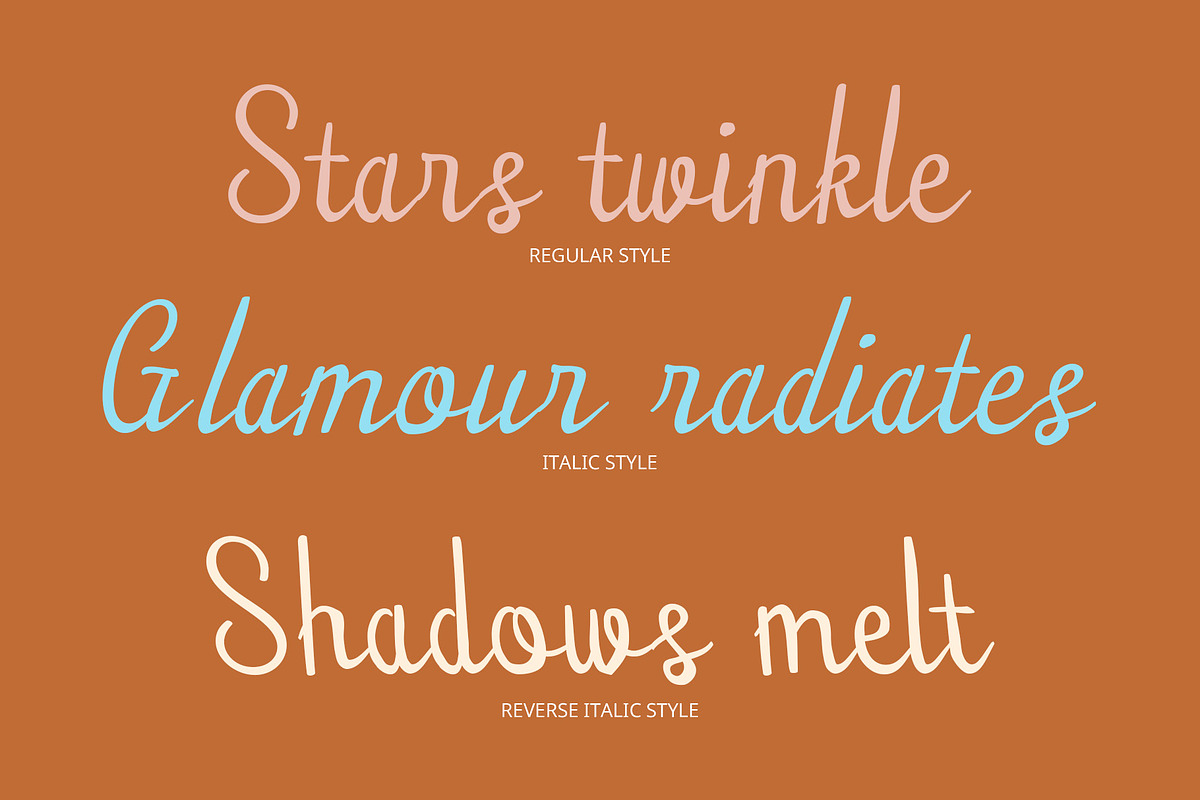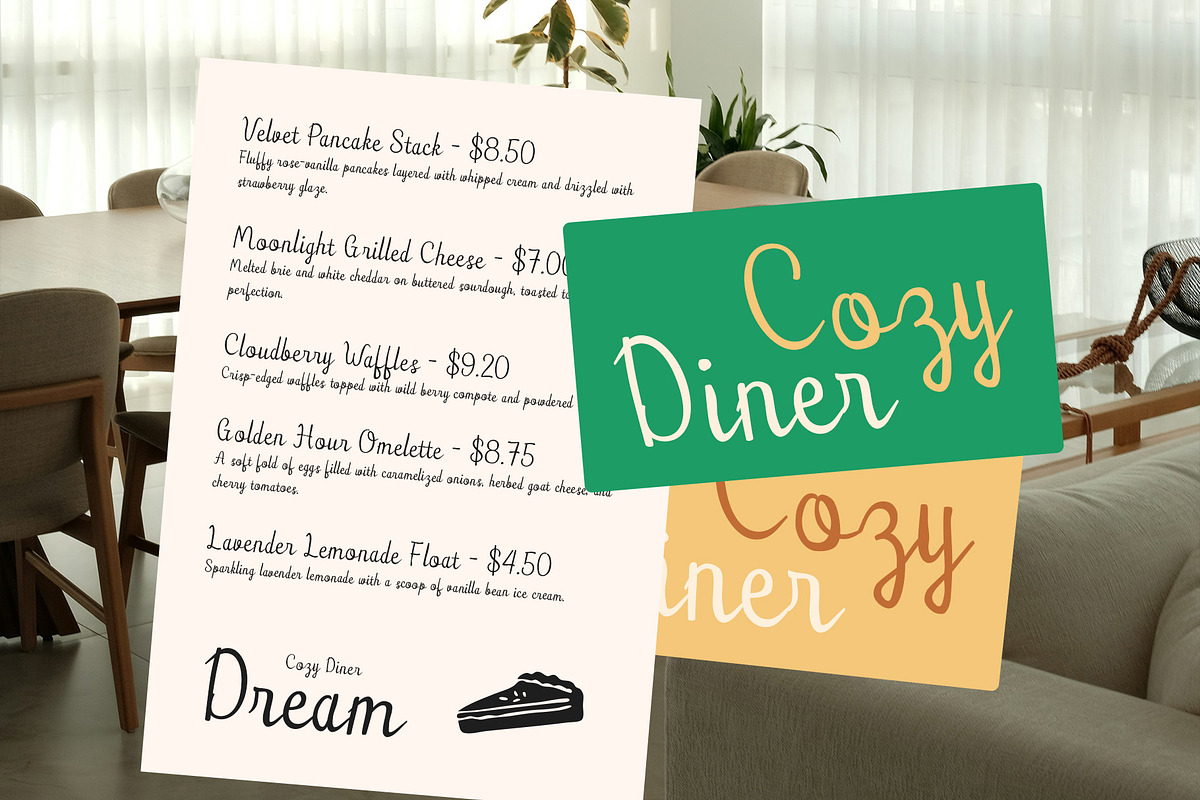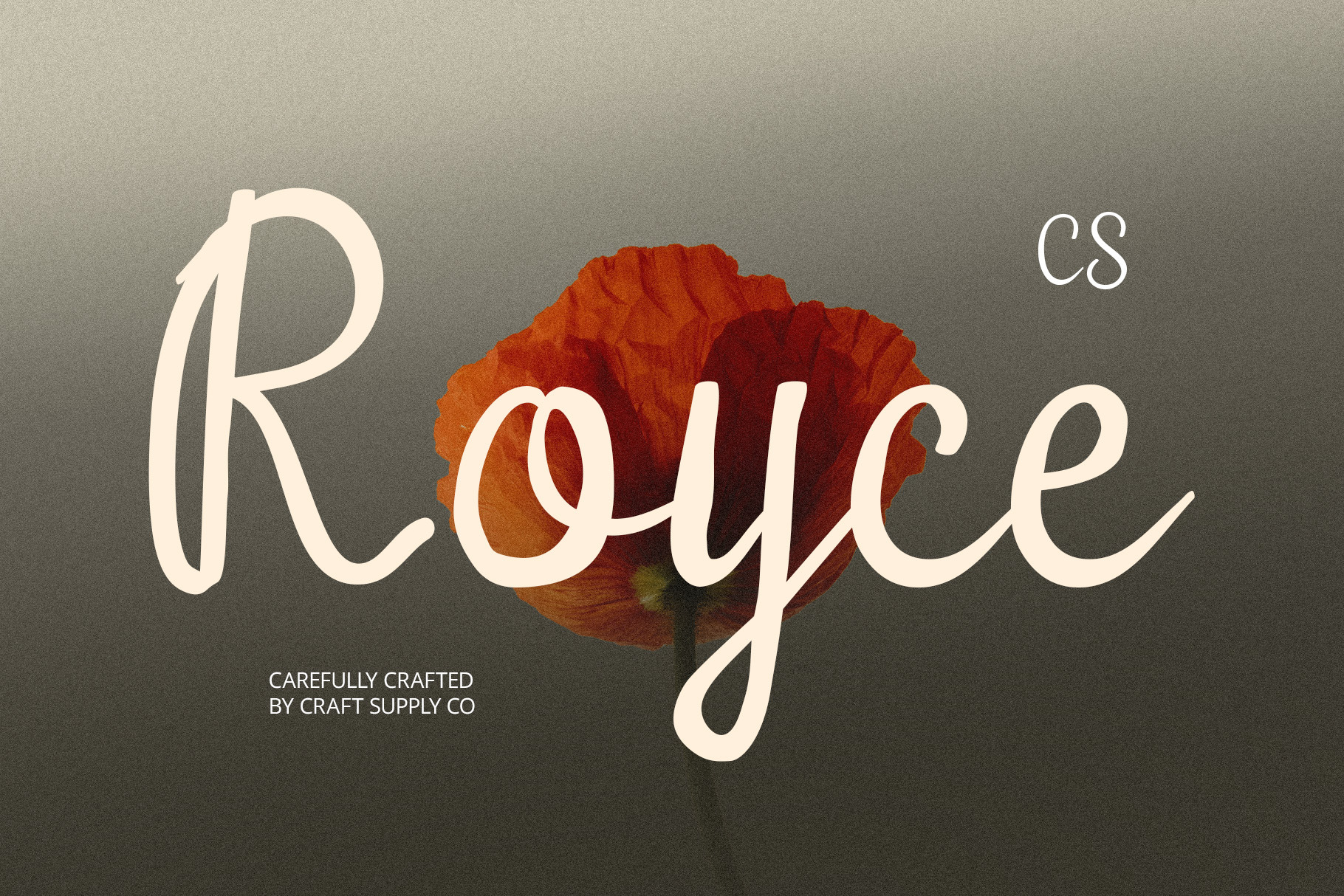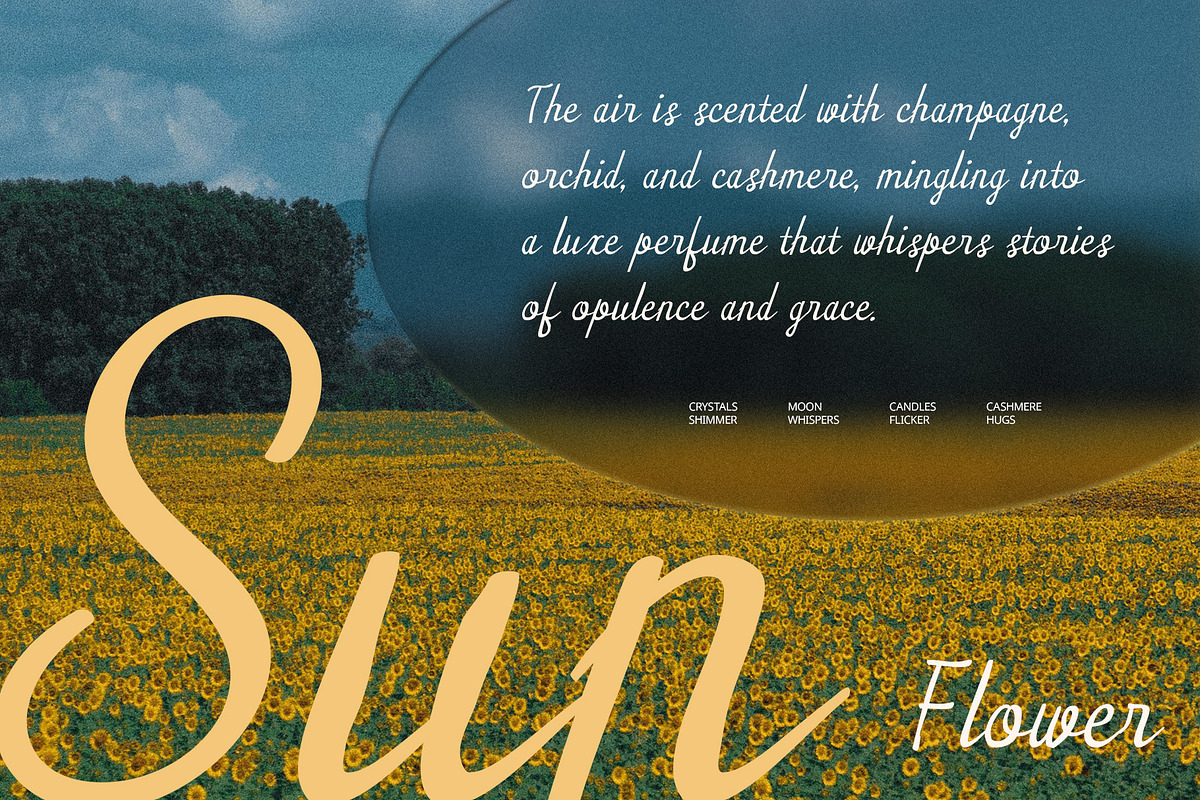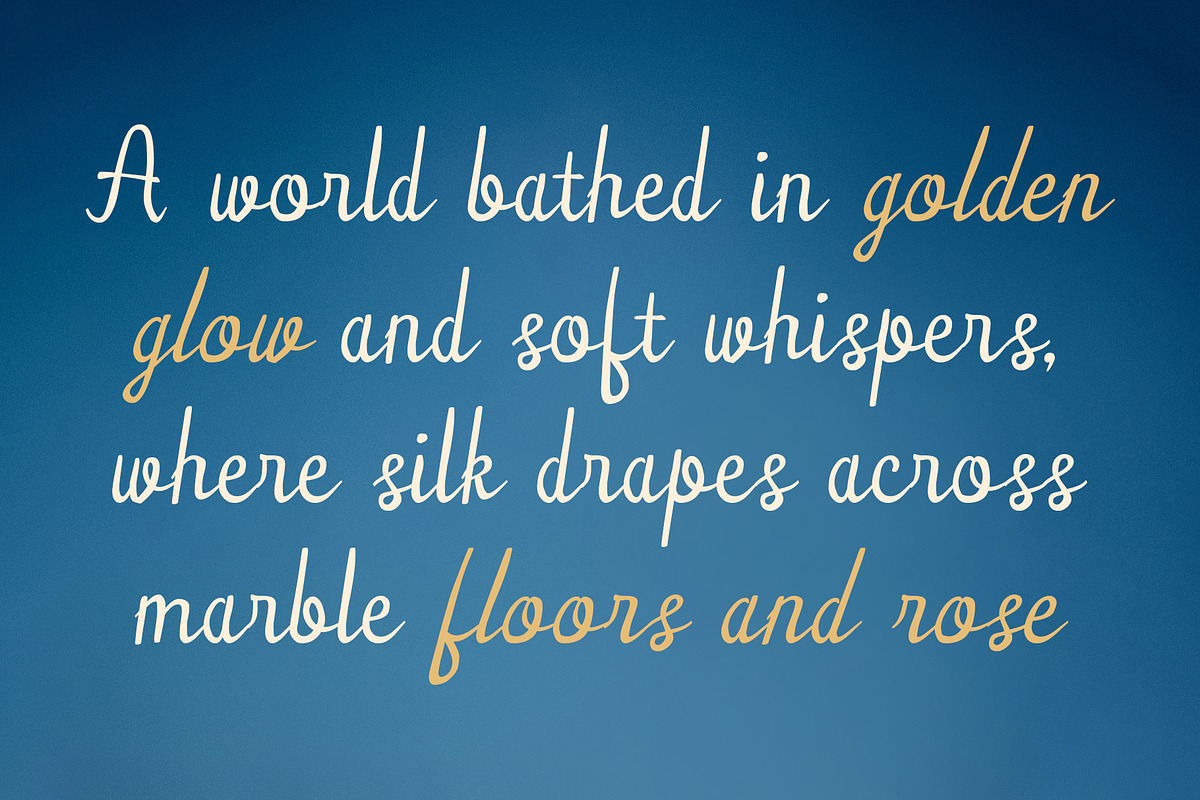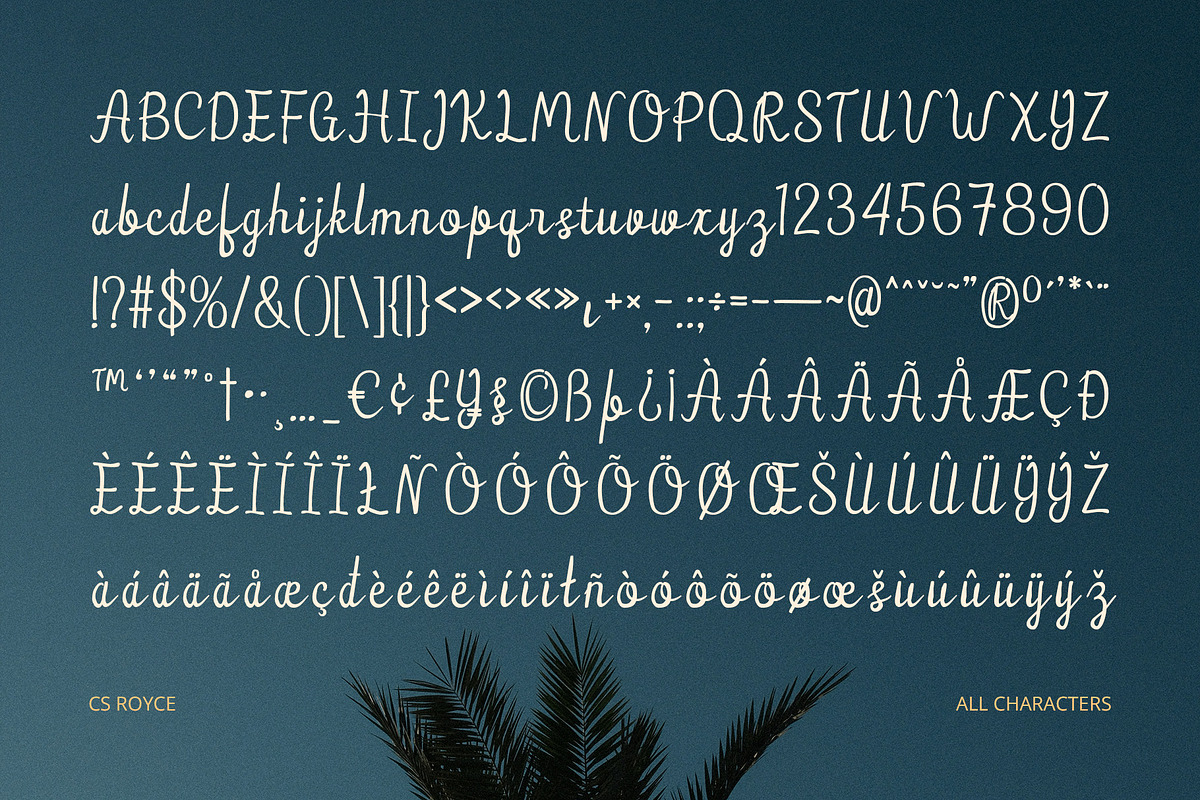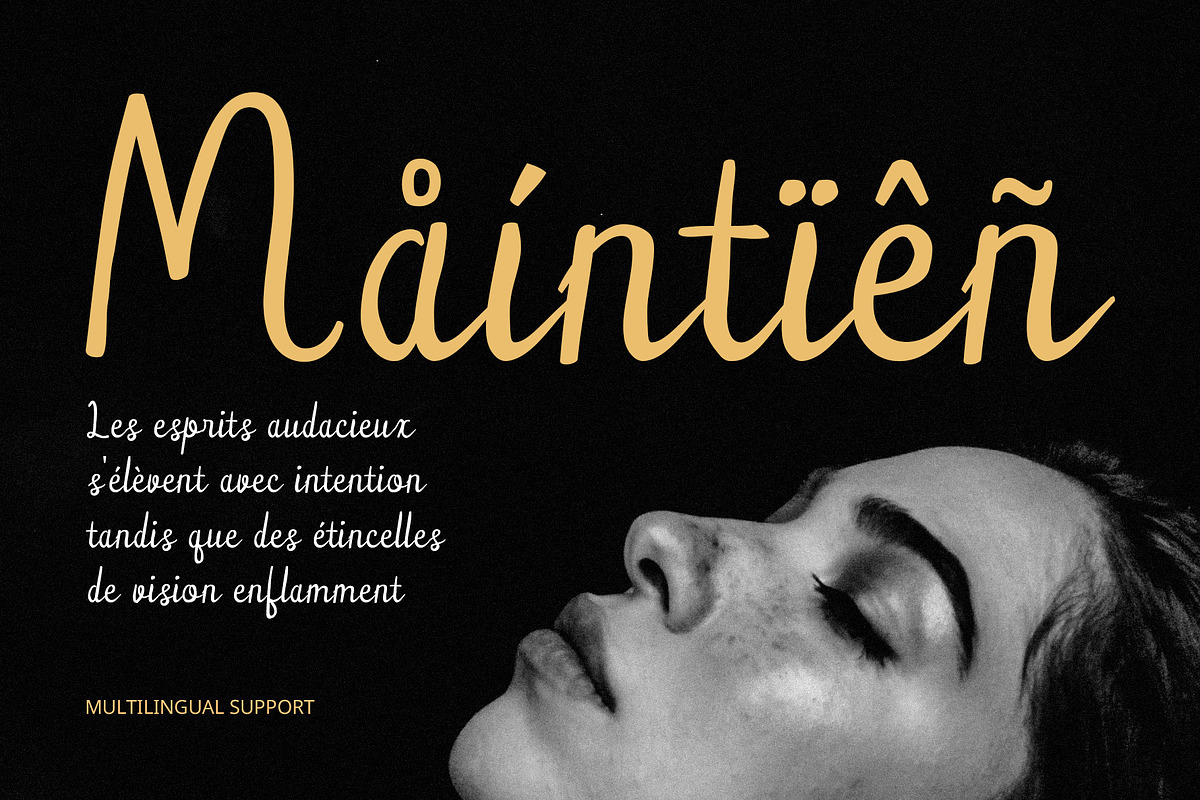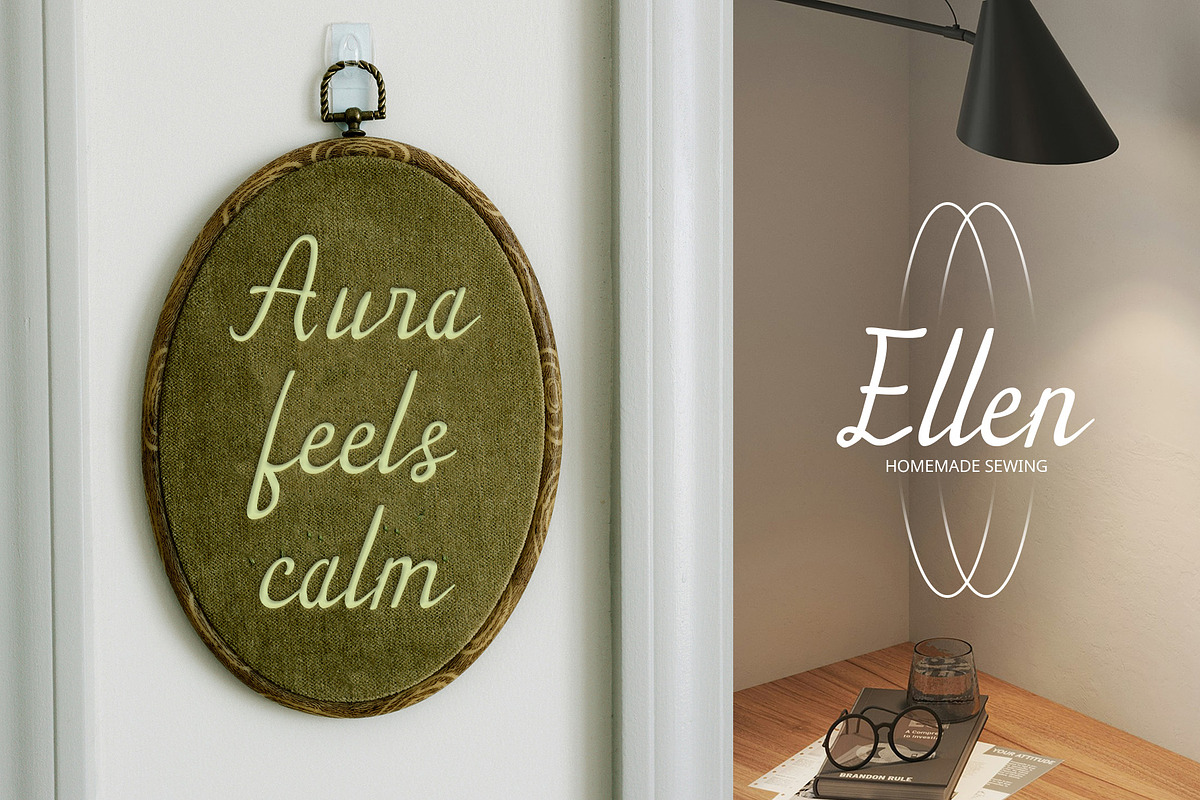
CS Royce – Script Font
CS Royce – Elegant Script Font
Graceful, Modern, and Refined CS Royce is a modern script font that combines a clean contemporary design with a cursive handwritten style, creating a seamless blend of elegance and charm. With its well-balanced strokes and fluid motion, this typeface offers a look that feels natural yet polished, perfect for modern aesthetics that demand both warmth and sophistication.
Smooth Curves with a Feminine Touch Each letter in CS Royce is carefully crafted with smooth and flowing curves, evoking a sense of grace, intimacy, and gentle beauty. Its handwritten feel retains a personal touch while maintaining clarity and refinement, making it ideal for romantic, high-end, or artistic designs.
Perfect for Stylish Branding and Editorials This font shines in projects that need a classy and feminine appeal—such as wedding invitations, beauty packaging, fashion logos, or lifestyle editorials. Whether used in headlines or delicate accents, CS Royce enhances your message with a touch of personality and timeless elegance.
Elegant Script for Today’s Designs CS Royce is more than just a script—it’s a statement of style, softness, and refinement. For designers looking to elevate their visuals with a typeface that captures both modern clarity and handwritten grace, CS Royce is the perfect choice.
- CS Royce Regular
- CS Royce Italic
- CS Royce Reverse Italic